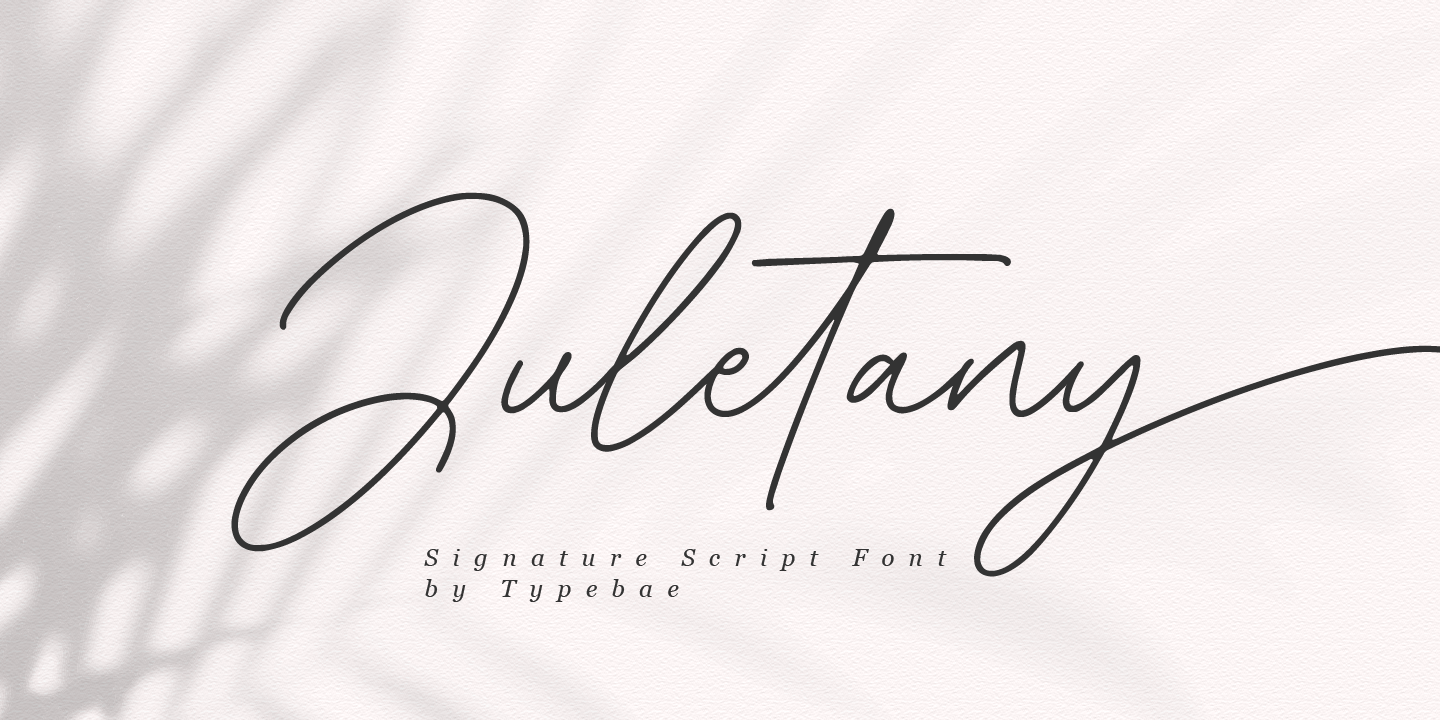
If you're looking for a festive, elegant script typeface with a handcrafted charm, Juletany Font Free Download is the perfect choice for your creative projects. This beautiful font features flowing, decorative letterforms with a warm and joyful vibe, making it ideal for holiday cards, Christmas invitations, seasonal branding, packaging, social media graphics, and event posters. Its festive style adds a magical, celebratory touch to any design.
Juletany Font offers excellent readability while maintaining its artistic and whimsical appeal. It includes ligatures, stylistic alternates, and multilingual support, providing flexibility for personalized and creative typography. Whether you're designing cozy holiday greetings or elegant seasonal promotions, this font brings charm and sophistication to every project.